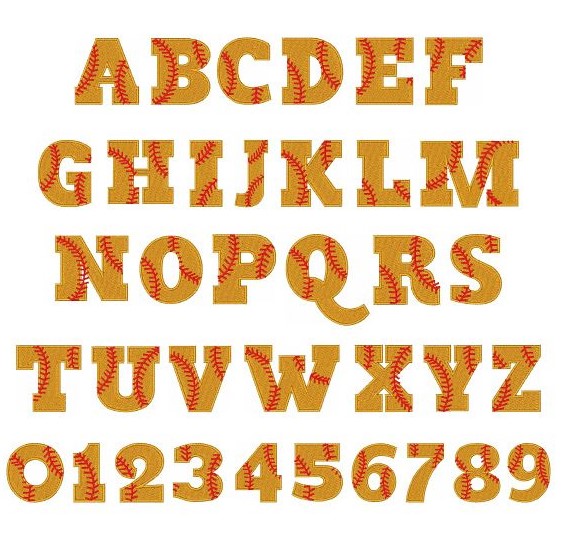
Softball Font is a cursive and vintage font that comes with great letters that will make your design much more elegant. This typeface was released and presented by Monotype Foundry.
This font family contains every type of lowercase and uppercase letters with the numbers and proper punctuation that works great with cast iron font. This typeface great for small text also. Softball Font is a free typeface that is great for its tail generator function. This is a varsity typeface that shares similarities with Auckland font.
This typeface family contains four different weights that are great for headlines as well as for small content. There’s now not a font list in the globe that doesn’t encompass Helvetica.